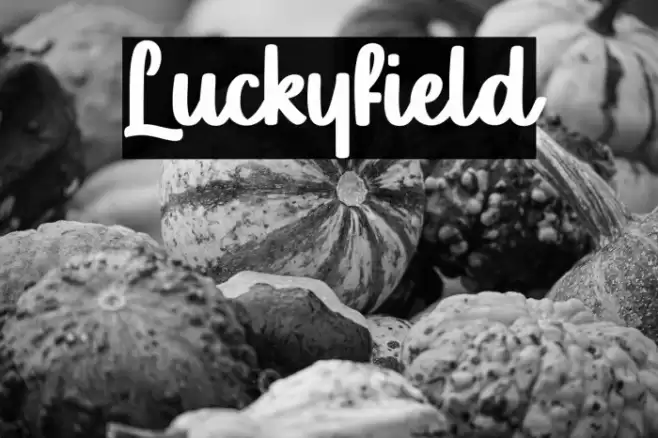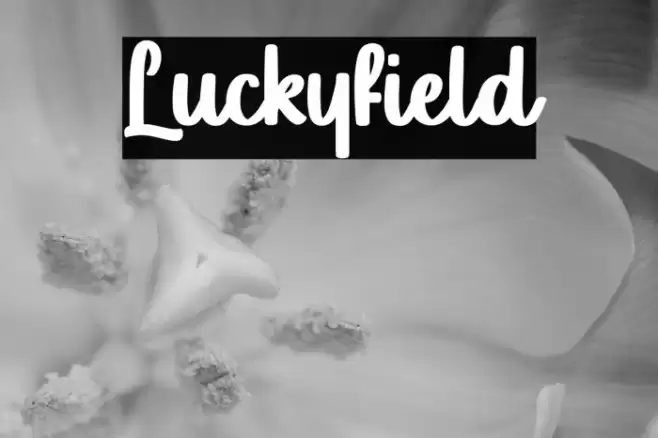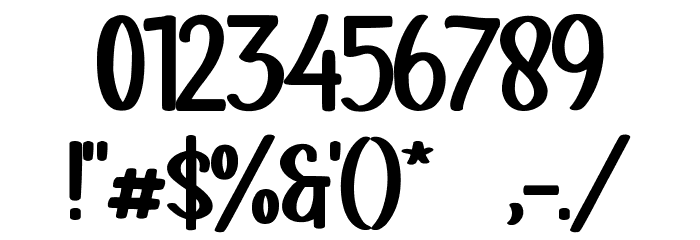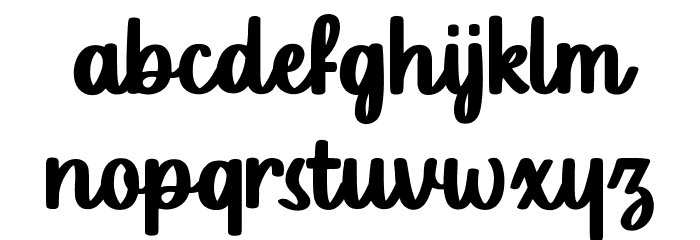
Luckyfield Font
Luckyfield Description
This font features a playful and bold script style with a handwritten appearance. The letters are rounded and connected, giving it a smooth and flowing look. The uppercase characters are slightly larger and more pronounced, while the lowercase letters maintain a consistent size and style. The numbers are clear and legible, matching the overall aesthetic of the font. Special characters are included, adding versatility for various uses. The font's design is both modern and casual, making it suitable for creative projects that require a personal touch.
A playful, bold script font with a handwritten style from Regular fonts.
- Proposed Projects: Ideal for greeting cards, invitations, logos, and social media graphics.
- Overall Style: Modern, Casual
- Use Case: Logos, Headlines, Invitations